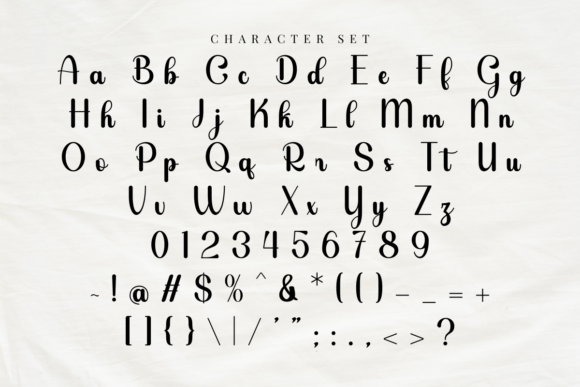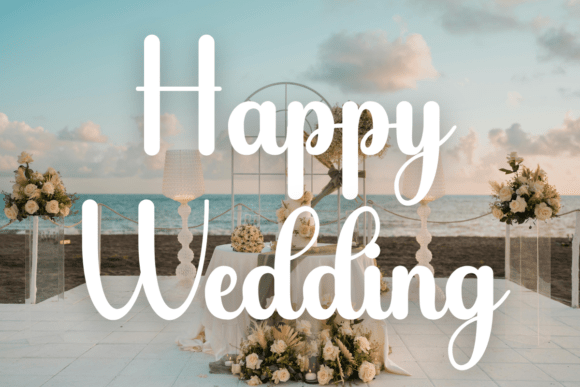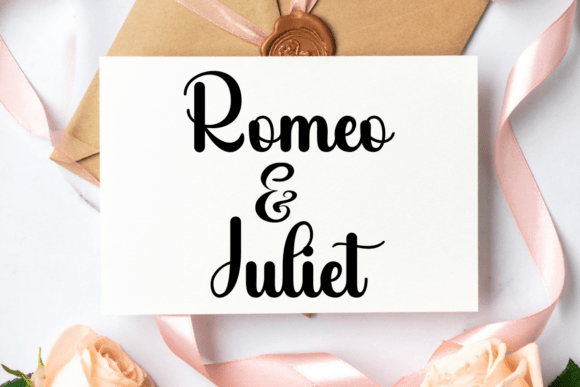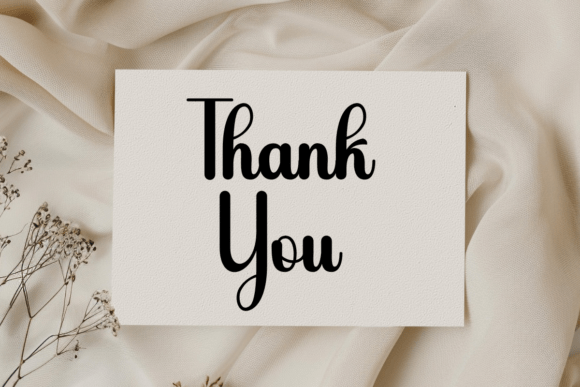
Dreaming Stylish Font: Elevate Your Designs with Elegance and Charm
In the world of typography, fonts play a crucial role in conveying the tone and personality of a design. For those seeking a stylish and romantic touch, the Dreaming Stylish font is an excellent choice. This sweet, cursive handwritten font is designed to bring a joyful and romantic feel to various creative projects, making it a versatile addition to any designer’s toolkit.
The Characteristics of Dreaming Stylish Font
Dreaming Stylish is a cursive handwritten font that boasts a soft and graceful character. Its elegant yet casual style makes it perfect for a wide range of applications, from branding and logos to wedding designs, greeting cards, fashion materials, lookbooks, and marketing promotions. The font’s unique charm lies in its ability to convey a sense of warmth and personality, making it an ideal choice for designers looking to add a touch of handmade elegance to their work.
Perfect for Various Creative Projects
One of the standout features of Dreaming Stylish is its versatility. This font looks beautiful across a wide range of creative projects, including:
- Branding and Logos: Create a lasting impression with a custom logo that exudes elegance and sophistication.
- Wedding Designs: Add a touch of romance and whimsy to wedding invitations, decorations, and other materials.
- Greeting Cards: Make your greeting cards stand out with a personal and heartfelt touch.
- Fashion Materials: Elevate your fashion designs with a stylish and modern font that speaks to your brand’s aesthetic.
- Lookbooks and Marketing Promotions: Create visually stunning lookbooks and marketing materials that capture the essence of your brand.
Why Choose Dreaming Stylish Font?
So, why should designers and crafters choose Dreaming Stylish font for their projects? Here are just a few compelling reasons:
- Elegant yet Casual: Dreaming Stylish strikes the perfect balance between elegance and casual charm, making it suitable for a wide range of projects.
- This font is designed to evoke a sense of romance and whimsy, perfect for projects that require a touch of warmth and personality.
- Handmade Touch: Dreaming Stylish has a distinctly handmade feel, making it ideal for designers looking to add a personal touch to their work.
- Versatile: This font can be used across various creative projects, from branding and logos to wedding designs and marketing promotions.
Tips for Using Dreaming Stylish Font
To get the most out of Dreaming Stylish font, here are a few tips to keep in mind:
- Pair with Other Fonts: Experiment with pairing Dreaming Stylish with other fonts to create a unique and visually appealing combination.
- Adjust Font Sizes: Play with font sizes to create visual hierarchy and emphasis in your designs.
- Use in Combination with Images: Combine Dreaming Stylish with high-quality images to create stunning visual effects.
In conclusion, Dreaming Stylish font is a beautiful and versatile addition to any designer’s toolkit. Its elegant yet casual style, romantic feel, and handmade touch make it perfect for a wide range of creative projects. Whether you’re aiming for a fancy, elegant look or a warm, handmade touch, Dreaming Stylish is sure to elevate your designs and add a touch of charm and personality. So why not give it a try and see the difference it can make in your next project?